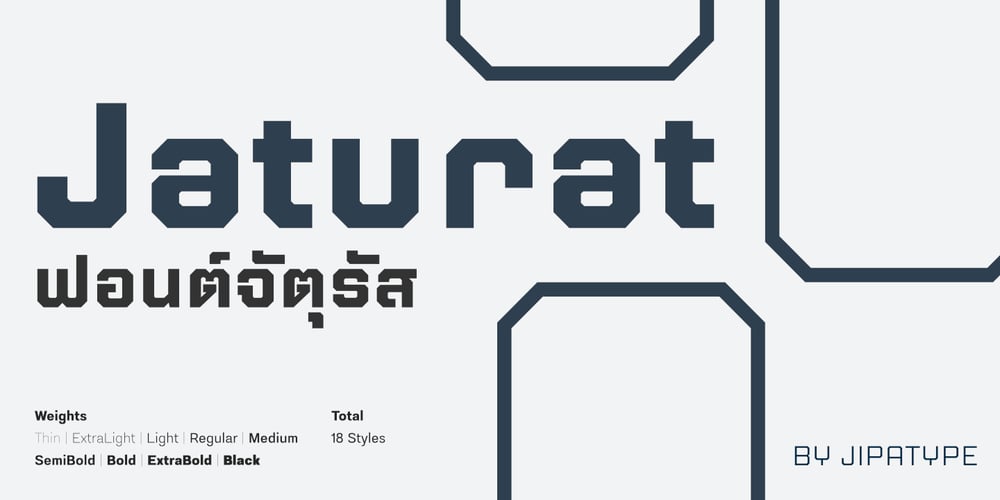
Jaturat Font Family was designed by Anupap Jaichumnan and published by Jipatype. Jaturat contains 18 styles and family package options. Jaturat is a distinctive squared sans-serif typeface that offers support for both Thai and Latin-1 characters. Its design features a unique alternative Thai loop head, adding a contemporary twist to traditional Thai typography. The font family comprises 18 styles, ranging from Thin to Black weights,